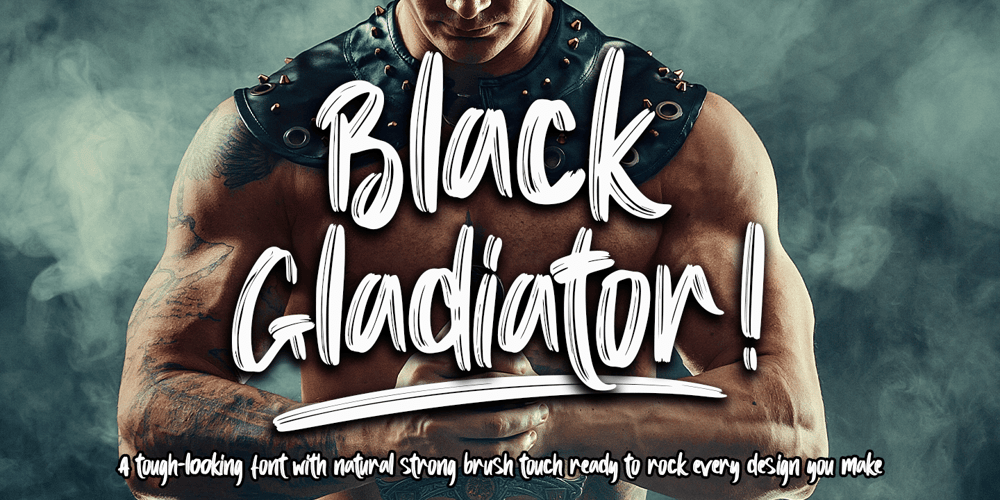
Black Gladiator
Black Gladiator font
Black Gladiator Font Family was designed by Thomas Aradea and published by Letterara. Black Gladiator contains 1 styles and family package options. Black Gladiator is a natural dry brush font. a tough-looking font with natural strong brush touch ready to rock every design you make. this font has a striking look and a good flow font that can add style to your designs. It’s perfect for logos, quotes, posters, clothing, and every other design which needs a strong touch.